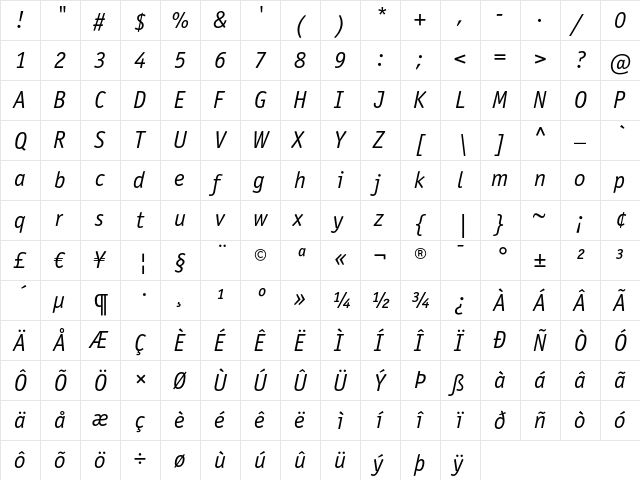
ITC Officina Sans LT Book Italic Font Preview
ITC Officina Sans LT Book Italic
Design Context for ITC Officina Sans LT Typeface
ITC Officina Sans LT offers clean, dependable letterforms without strong stylistic allegiance, making it a practical choice for designers who need flexibility. Its italic angle brings a sense of urgency and motion to the letterforms. The delicate stroke weight brings airiness and refinement to layouts.
Pro Tip: Use ITC Officina Sans LT for emphasis, pull quotes, and subheadings where its slanted energy can add rhythm to the layout.